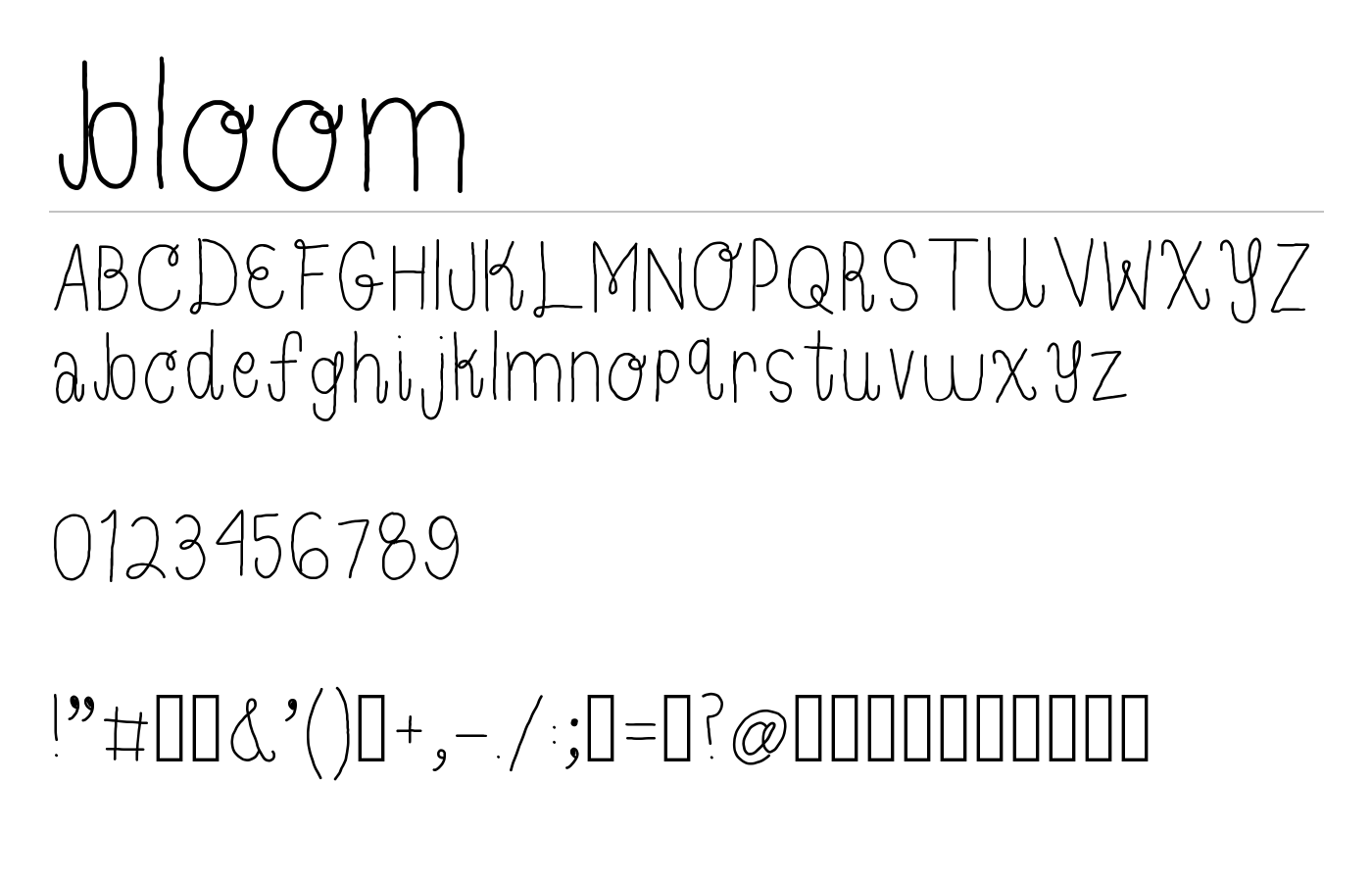
Bloom Font is a delicate, hand-drawn sans serif with a playful and whimsical personality, characterized by its thin strokes and unique looping details on select letters. Its light weight and airy letterforms make it ideal for creative projects, informal branding, and artistic headlines where a charming, personal touch is desired. This font works best in fun, lighthearted contexts such as invitations, greeting cards, and casual editorial designs, adding a friendly and approachable vibe.
bloom Font
About bloom Font